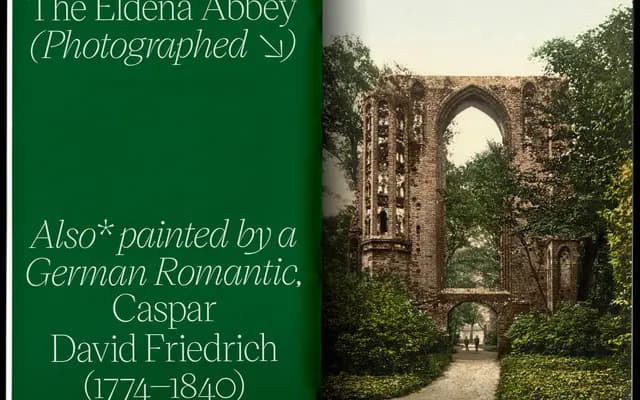
Victor Serif specimen from KOMETA Typefaces
A contemporary serif from KOMETA Typefaces suited to editorial and text settings.
Victor Serif is a text-oriented serif released by KOMETA Typefaces. The design targets editorial and publishing contexts where legibility and a clean formal voice are priorities. Limited page content prevents a more detailed account of its full weight range or script coverage.
The name and foundry context suggest a contemporary serif design; without further page content, it is classified as a general contemporary serif based on available signals.